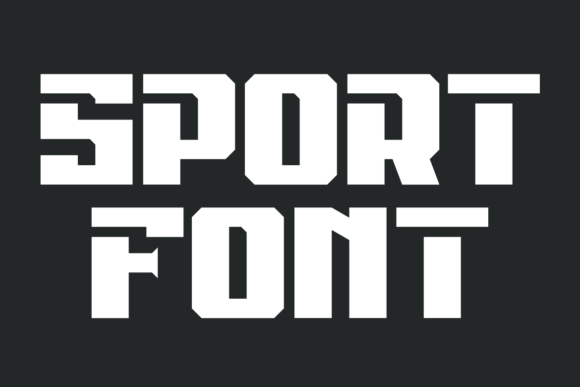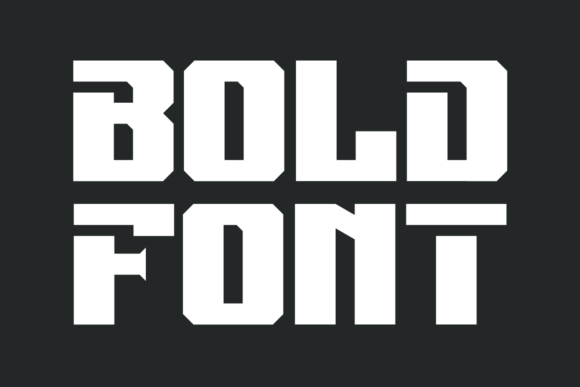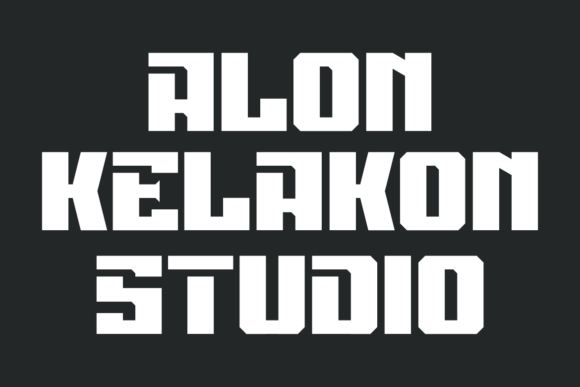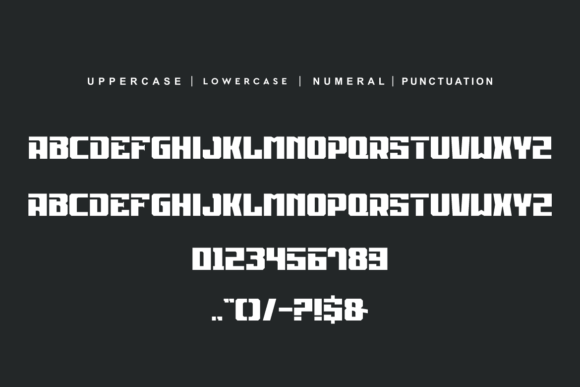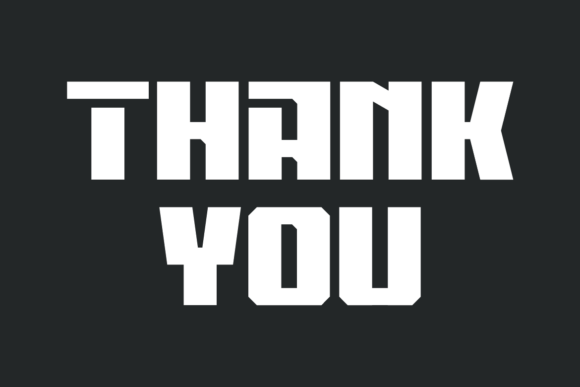
Running with Style: Introducing Gaming Runner Font
Remember that moment when you finally created a design that you’re truly proud of? The rush of adrenaline, the sense of accomplishment – it’s a feeling like no other. For designers, this moment is what drives us to keep pushing the boundaries of creativity. And that’s exactly what we’re here to talk about today – a font that’s about to take your designs to the next level: Gaming Runner Font.
Gaming Runner Font is a bold and modern sans serif font designed to make a statement. Whether you’re working on a movie poster, album cover, or logo, this font is the perfect addition to give your design that extra oomph. Its versatility makes it a valuable asset for designers looking to create eye-catching and memorable designs.
Gaming Runner Font Key Features
- Unique Characteristics: Gaming Runner Font features a bold, futuristic design with a unique blend of digital and analog elements, making it perfect for gaming, technology, and sci-fi related projects.
- Font Styles: The font includes multiple styles, including Regular, Bold, Italic, and Bold Italic, offering flexibility and versatility for designers and typographers.
Gaming Runner Font Review
Overall, I’d say the Gaming Runner font has its moments. It’s a clean and modern design that works well for gaming-related projects. ✨ The font’s bold lines and geometric shapes make it easy to read, even at small sizes.
Here are some of the things that work well:
- Great for gaming-related projects: The font’s bold and modern design makes it perfect for game titles, logos, and other gaming-related graphics.
- Easy to read: The font’s clean lines and geometric shapes make it easy to read, even at small sizes.
- Modern look: The font’s design gives it a modern and sleek look that works well for a variety of projects.
However, there are some limitations to keep in mind:
- Not suitable for body text: The font’s bold design makes it not suitable for large blocks of text, such as body text.
- Limited language support: The font may not support all languages, so be sure to check compatibility before using it for international projects.
- Not ideal for small text sizes: While the font is easy to read at small sizes, it may not be ideal for very small text sizes, such as in a navigation menu.
Overall, the Gaming Runner font is a solid choice for gaming-related projects, but it’s not a one-size-fits-all solution. It’s best used for titles, logos, and other graphics where a bold and modern design is needed.
Tips for Getting the Most Out of Gaming Runner Font
Here are some tips to help you get the most out of Gaming Runner Font:
- Use it for gaming-related projects, such as game titles, menus, and UI elements.
- Experiment with different font sizes, colors, and styles to create a unique look.
- Combine Gaming Runner Font with other fonts to create a visually appealing design.
Here are some common use cases for Gaming Runner Font:
- Game titles and logos.
- Menu and UI elements.
- Brochures and flyers for gaming events.
- Social media graphics and posts.